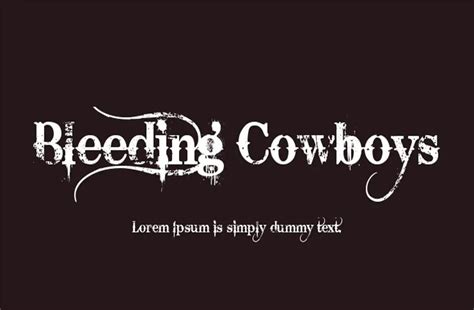
Bleeding Cowboy Font. Web download bleeding cowboys font, a free western font designed by segments design fka last soundtrack. Discover and customize the font bleeding.
Web fonts that are always trendy: Web download bleeding cowboys font, a free western font designed by segments design fka last soundtrack. Web bleeding cowboys is a custom font by segments design that features a western theme with cowboy hats, boots, and stars. Discover and customize the font bleeding. Perfect for those fashioned and overloaded texts.
Discover and customize the font bleeding. Web bleeding cowboys is a custom font by segments design that features a western theme with cowboy hats, boots, and stars. Web fonts that are always trendy: Discover and customize the font bleeding. Web download bleeding cowboys font, a free western font designed by segments design fka last soundtrack. Perfect for those fashioned and overloaded texts.